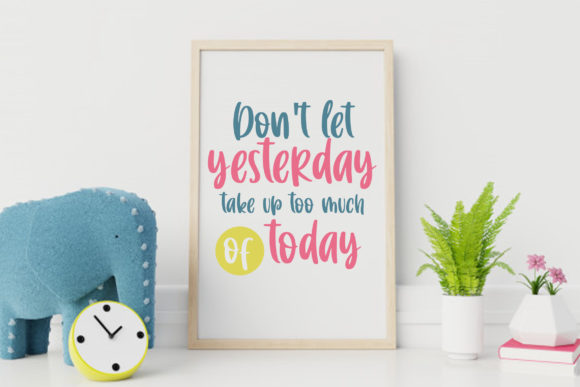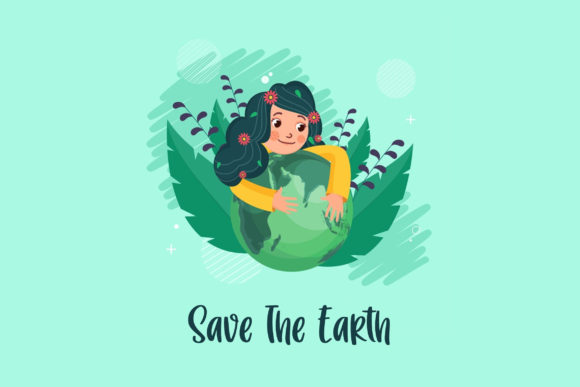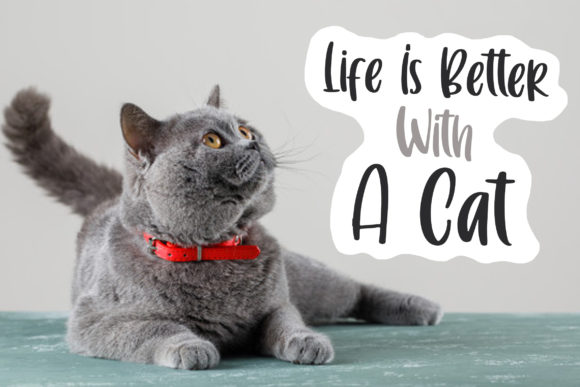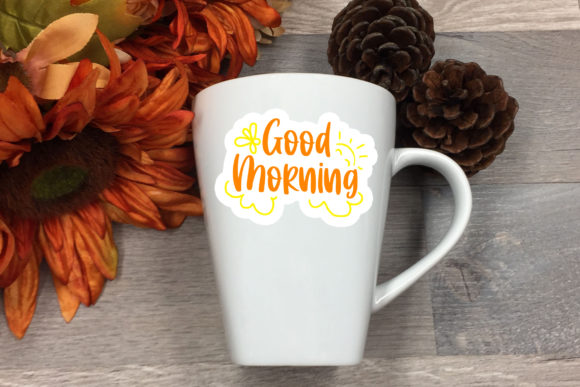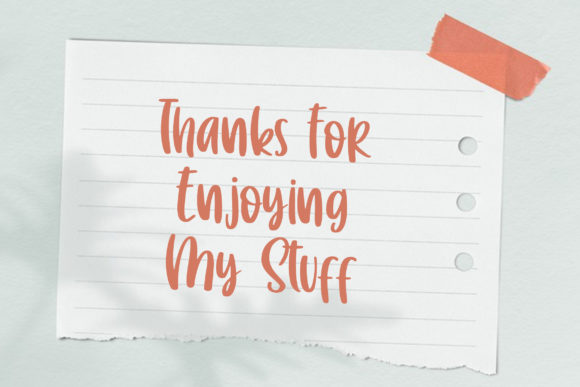
Discover the Charm of Forest Song Font: Elevate Your Designs with this Refreshing Display Font
Are you tired of using the same old fonts in your designs? Look no further! Forest Song Font is here to breathe new life into your creations. This cool, refreshing, and neat-looking display font is perfect for designers and crafters looking to add a touch of elegance and sophistication to their work. In this article, we’ll dive into the world of Forest Song Font and explore its features, benefits, and uses.
What is Forest Song Font?
Forest Song Font is a stunning display font that is sure to capture the attention of your audience. Its unique and refreshing design makes it perfect for a wide range of projects, from branding and advertising to packaging and digital media. Whether you’re a designer, crafter, or DIY enthusiast, Forest Song Font is an incredible asset to your font library.
Key Features of Forest Song Font
- Unique and Refreshing Design: Forest Song Font boasts a one-of-a-kind design that is sure to make your creations stand out from the crowd.
- Neat and Elegant: This font is characterized by its clean lines, elegant curves, and sophisticated style.
- Versatile: Forest Song Font can be used for a wide range of projects, from digital media to print materials.
- Easy to Read: Despite its unique design, Forest Song Font is easy to read, making it perfect for body text and headlines.
Benefits of Using Forest Song Font
So, why should you choose Forest Song Font for your next project? Here are just a few benefits of using this amazing font:
- Elevate Your Designs: Forest Song Font has the potential to elevate any creation, adding a touch of sophistication and elegance to your designs.
- Stand Out from the Crowd: With its unique design, Forest Song Font is sure to make your creations stand out from the crowd.
- Save Time: With Forest Song Font, you can create stunning designs in no time, thanks to its easy-to-read and versatile design.
- Perfect for Branding: Forest Song Font is perfect for branding and advertising projects, helping you to create a lasting impression on your audience.
Uses of Forest Song Font
So, what can you use Forest Song Font for? The possibilities are endless! Here are just a few ideas to get you started:
- Branding and Advertising: Use Forest Song Font to create stunning logos, advertisements, and marketing materials.
- Digital Media: Forest Song Font is perfect for digital media projects, including social media graphics, blog posts, and website headers.
- Packaging: Add a touch of elegance to your packaging with Forest Song Font.
- Crafting and DIY: Forest Song Font is perfect for crafters and DIY enthusiasts, adding a touch of sophistication to your projects.
| Font Name | Forest Song Font |
| Author | dapiyupi |
In conclusion, Forest Song Font is a cool, refreshing, and neat-looking display font that is sure to elevate any creation. With its unique design, elegant style, and versatile uses, Forest Song Font is an incredible asset to any font library. Whether you’re a designer, crafter, or DIY enthusiast, Forest Song Font is perfect for a wide range of projects. So why wait? Download Forest Song Font today and start creating stunning designs that will leave a lasting impression on your audience!